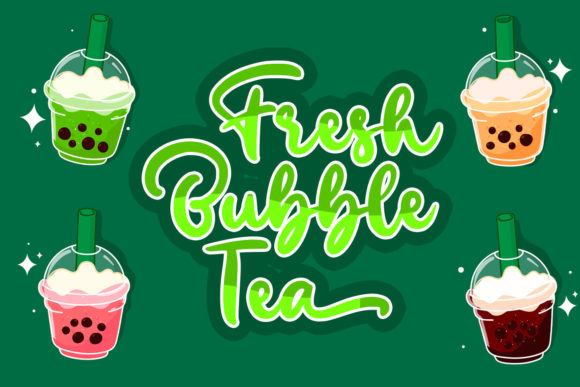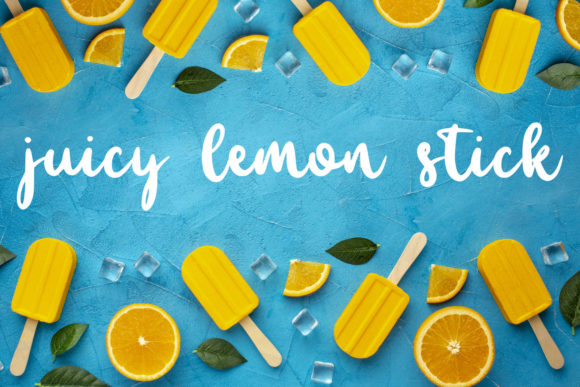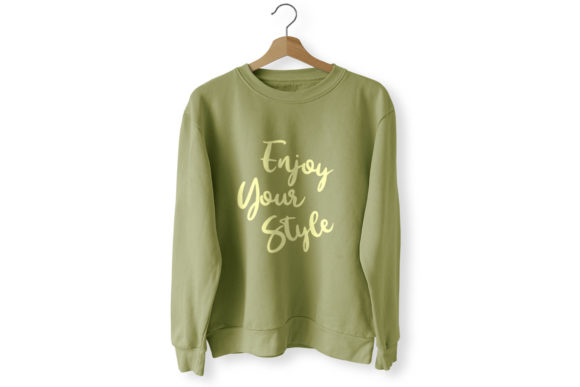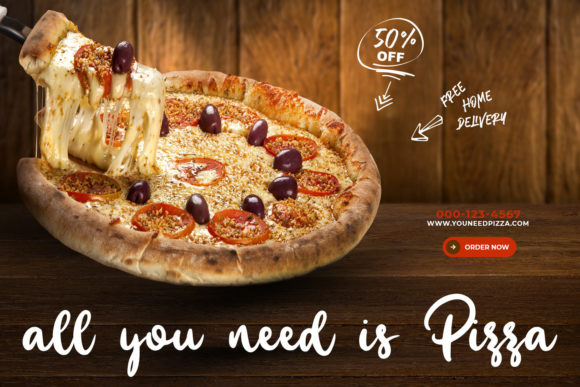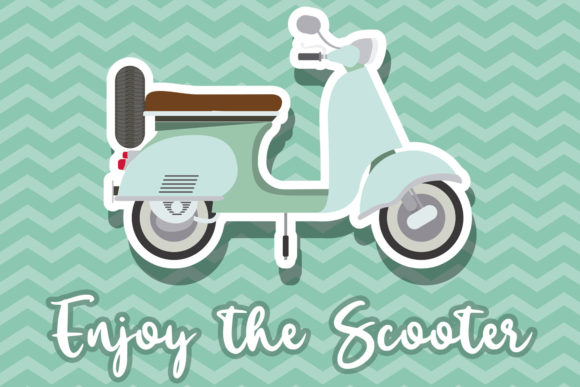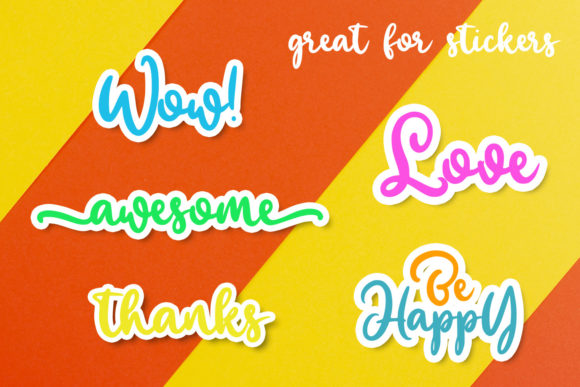
Introducing Gelico Milk Font: The Sweet and Versatile Handwritten Font for Your Creative Projects
Are you a designer, crafter, or DIY enthusiast looking for a font that can add a touch of warmth and personality to your projects? Look no further than Gelico Milk Font, a sweet, all-round, and flexible handwritten font that’s perfect for a wide range of creative applications. In this article, we’ll take a closer look at the features and benefits of Gelico Milk Font, and explore how it can help you turn your project ideas into real works of art.
A Warm and Romantic Font with a Jolly Twist
Gelico Milk Font is a beautifully designed handwritten font that’s infused with a sense of warmth, romance, and playfulness. Its sweet and gentle curves make it perfect for projects that require a touch of elegance and sophistication, while its jolly and upbeat vibe ensures that it’s also suitable for more lighthearted and fun applications. Whether you’re working on a wedding invitation, a branding project, or a DIY craft, Gelico Milk Font is sure to bring a smile to your face and a touch of personality to your work.
PUA Encoded for Easy Access to Glyphs and Swashes
One of the standout features of Gelico Milk Font is its PUA (Private Use Area) encoding, which makes it easy to access all of the glyphs and swashes with ease. This means that you can effortlessly add flourishes and decorative touches to your text, giving your projects a professional and polished finish. With Gelico Milk Font, you can say goodbye to tedious typing and hello to a world of creative possibilities.
Flexible and Versatile: Perfect for a Wide Range of Projects
Gelico Milk Font is an incredibly versatile font that’s suitable for a wide range of projects, from:
- DIY crafts and scrapbooking
Whether you’re working on a personal project or a client brief, Gelico Milk Font is the perfect choice for anyone looking to add a touch of personality and style to their work.
Why Choose Gelico Milk Font?
So why should you choose Gelico Milk Font for your next project? Here are just a few reasons:
- Unique and eye-catching design: Gelico Milk Font is a one-of-a-kind font that’s sure to grab attention and make your projects stand out.
- Easy to use: With its PUA encoding, Gelico Milk Font is incredibly easy to use, even for those with limited design experience.
- Flexible and versatile: This font can be used for a wide range of projects, from formal and elegant to fun and playful.
- High-quality design: Gelico Milk Font is designed to the highest standards, ensuring a professional and polished finish for all your projects.